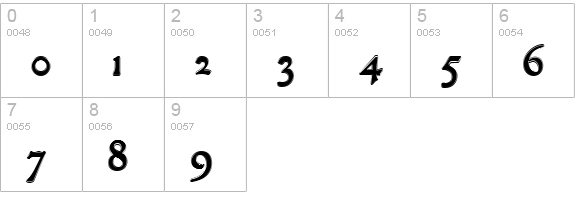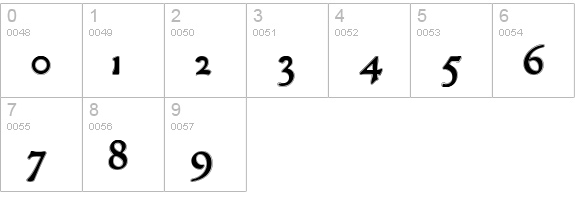
GranthamOutline Font Details
GranthamOutline is a stylish and modern display font that exudes sophistication and elegance. With its clean lines and distinctive outline design, this font is perfect for creating eye-catching headlines, titles, and logos. Its sleek appearance adds a touch of class to any project, making it ideal for branding, packaging, and advertising. The best part? GranthamOutline is completely free to download at FontsMarket.com. This means you can easily access this high-quality font without breaking the bank. Whether you're a designer, business owner, or creative enthusiast, GranthamOutline offers a versatile and chic option for your typography needs. Don't miss out on this fantastic opportunity to enhance your designs with the timeless appeal of GranthamOutline. Download it for free today at FontsMarket.com and let your creativity shine!